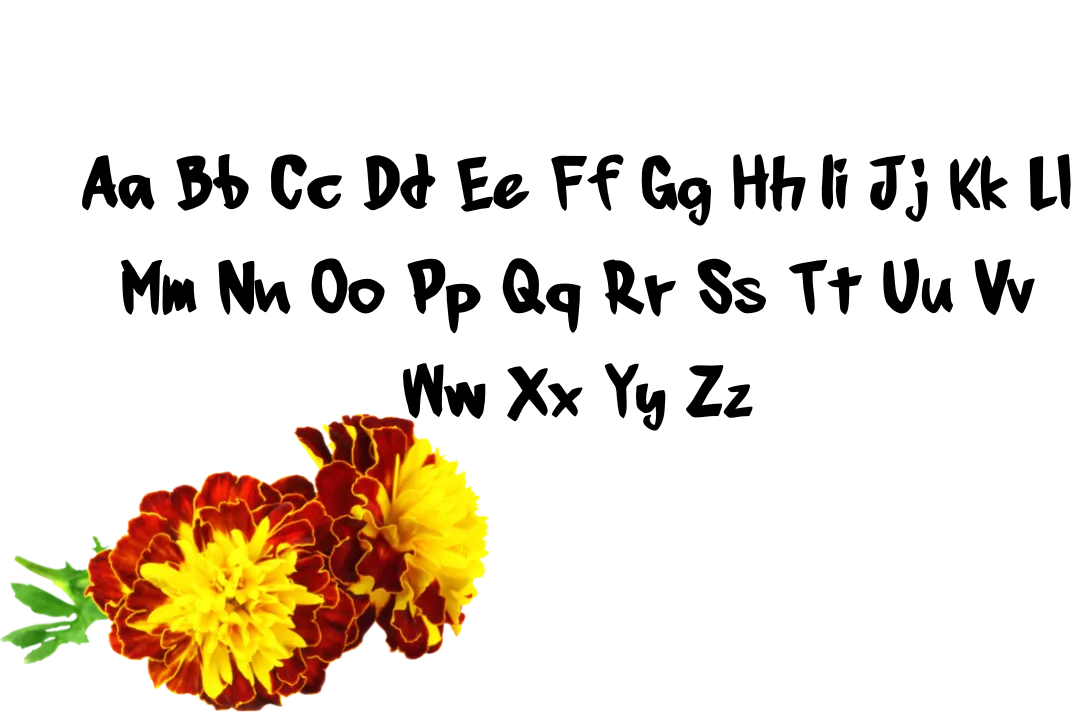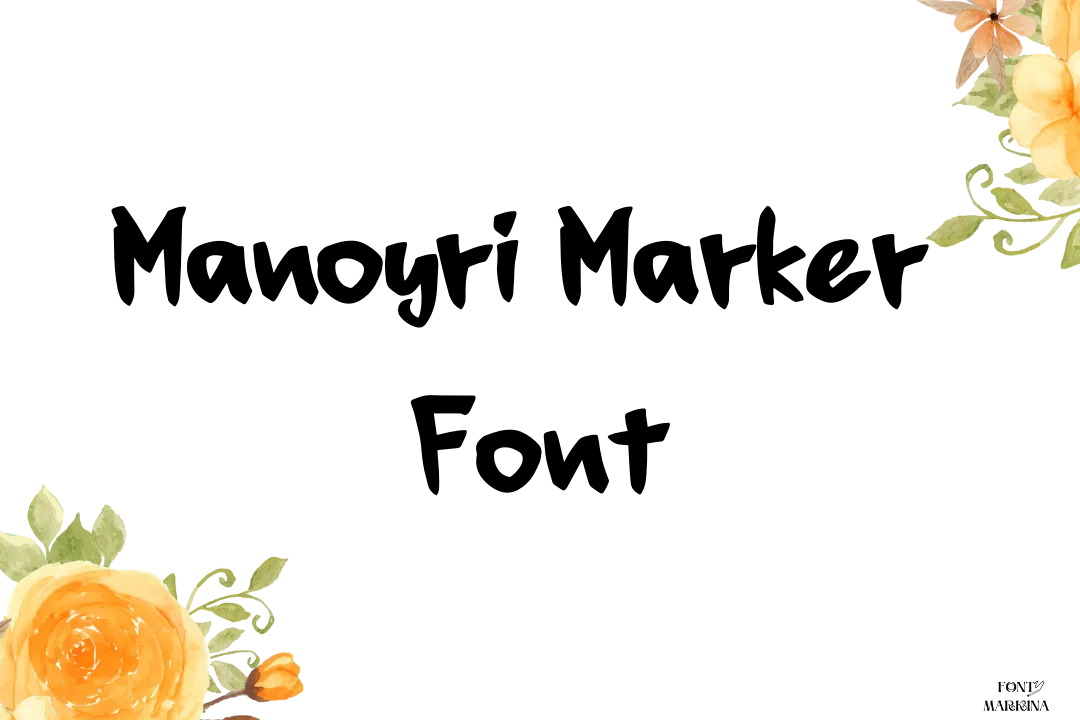
Manoyri Marker Font has its own shape and style. This stunning typography is recognized and favored for its nine advanced styles. Because its styles make this family more classic. There are two intellectual and brilliant designers who take the charge of this family creation famous names Stergios Tsiamis and Iordanis Passas.
This texture lies in the classification of the Script family and also looks like Brush typefaces. This family also allows the utilization of the copy-and-paste function of this typeface for a bunch of text design projects. Korku font is similar to this family in different aspects.
The text generator tool of this typography is very useful in the case of conversion of simple designs to colorful and attractive graphic themes. After using this family all of you will notice its bold and bright results.
Where We Can Use Manoyri Marker Font
We all of us come towards the use of this font then it is very surprising for us that this is used in all higher projects. Even your business projects can be done by using this font family.
Mostly, all businessmen use this font family for their presentation plans and projects. Not enough in the public transportation system, with the help of this typography everything is easily managed.
For different attractive thumbnails, this family is effective. In newspapers, pillows, shirts, and card designs I think the font is going best for all of you. Moreover, you can also make the proper pairing of this Banco font with this one.
| Name | Manoyri Marker Font |
| Designer | Stergios Tsiamis and Iordanis Passas |
| Type | Script |
Who is the main designer of Manoyri Marker Font?
Stergios Tsiamis and Iordanis Passas are two personalities who work hard for the creation of this family.
Where we can use Manoyri Marker Font?
A bunch of places where this family is best for use. Especially for all design projects, it is effective.